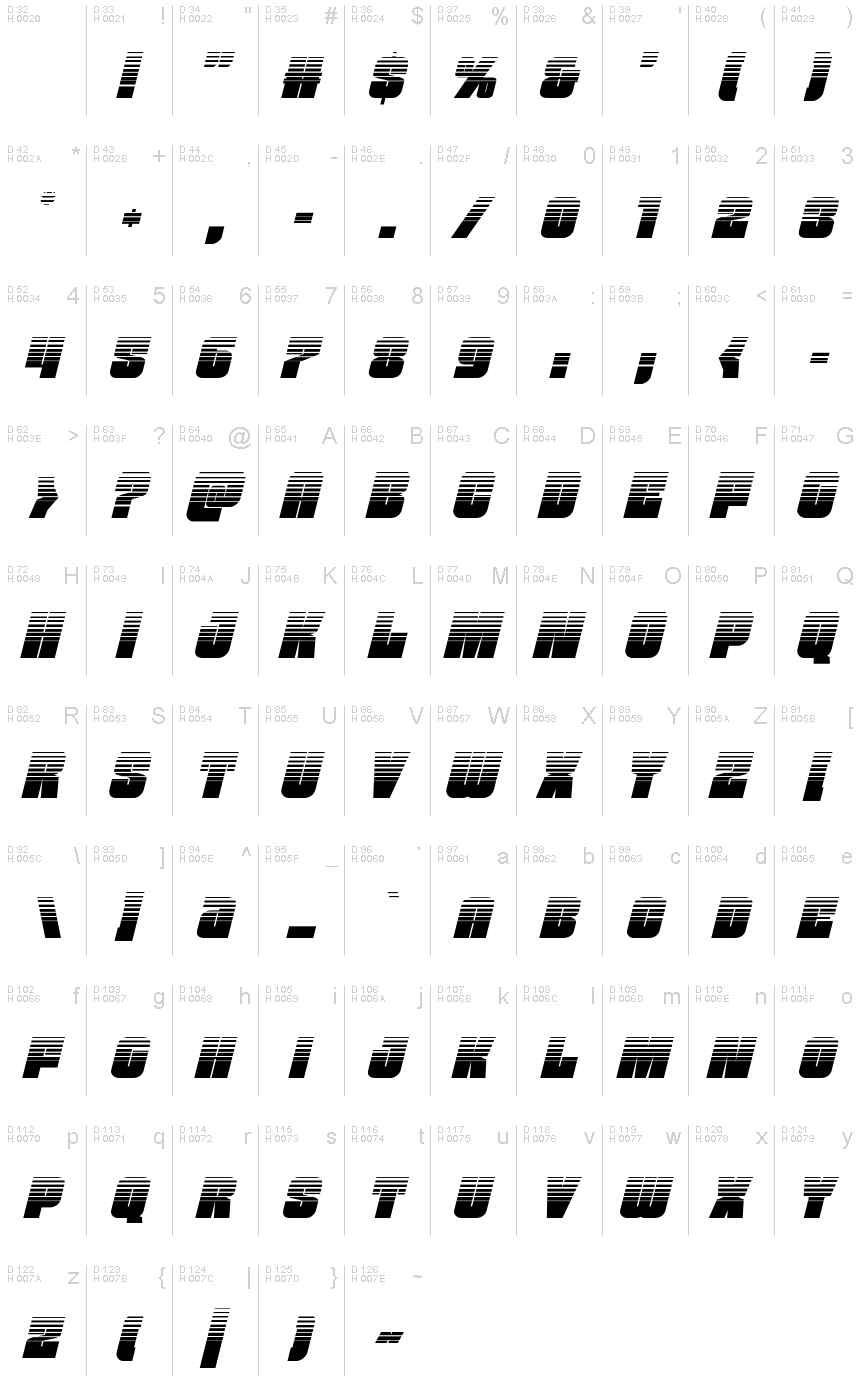
Funk Machine Halftone Italic
Funk Machine Halftone Italic font was created by Iconian Fonts. Funk Machine Halftone Italic is a high contrast modular geometric typeface depicting dynamism. It’s a bold italic display font, featuring futuristic geometric elements and horizontal hatchings, which seriously enhance its internal architecture and energetic mood.
The groovy style is perfect for graphic design posters, advertisements, art events, techno parties and concert tickets. Ideal to set a title for action-packed movie titles or video games in any platform. Could be used in logos of sports teams or as visual effect t-shirt designs of clothing brands targeting young fun loving audience.